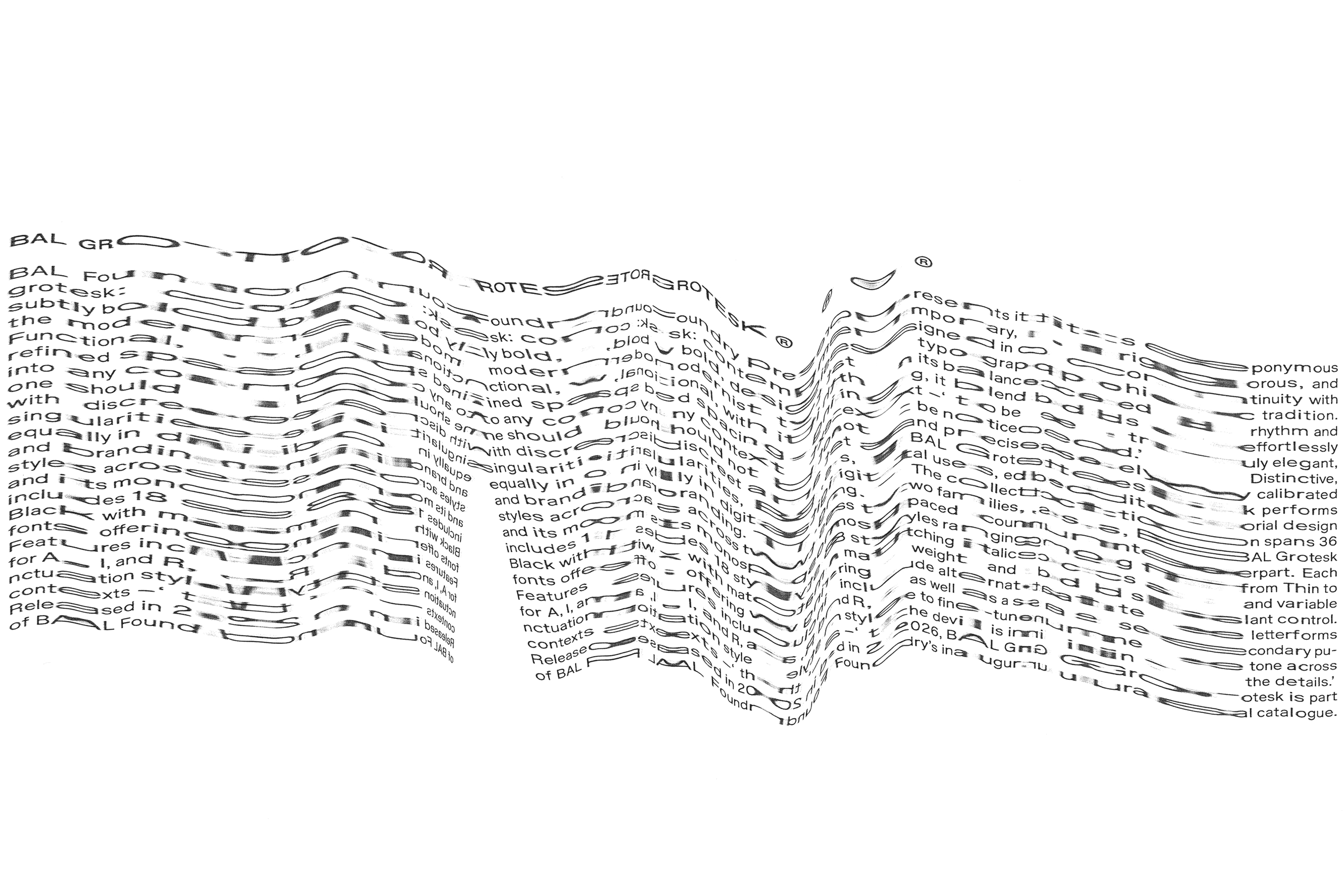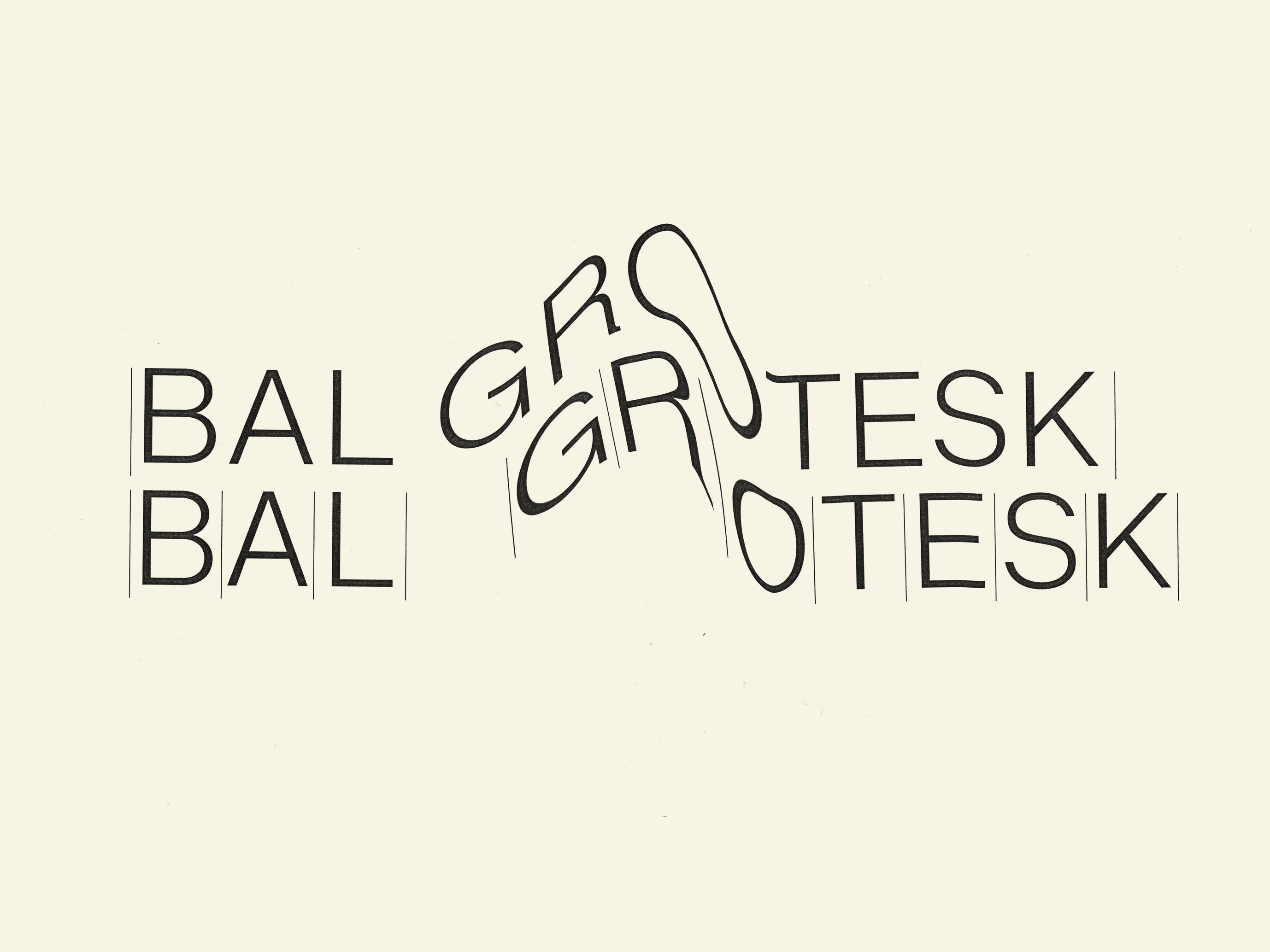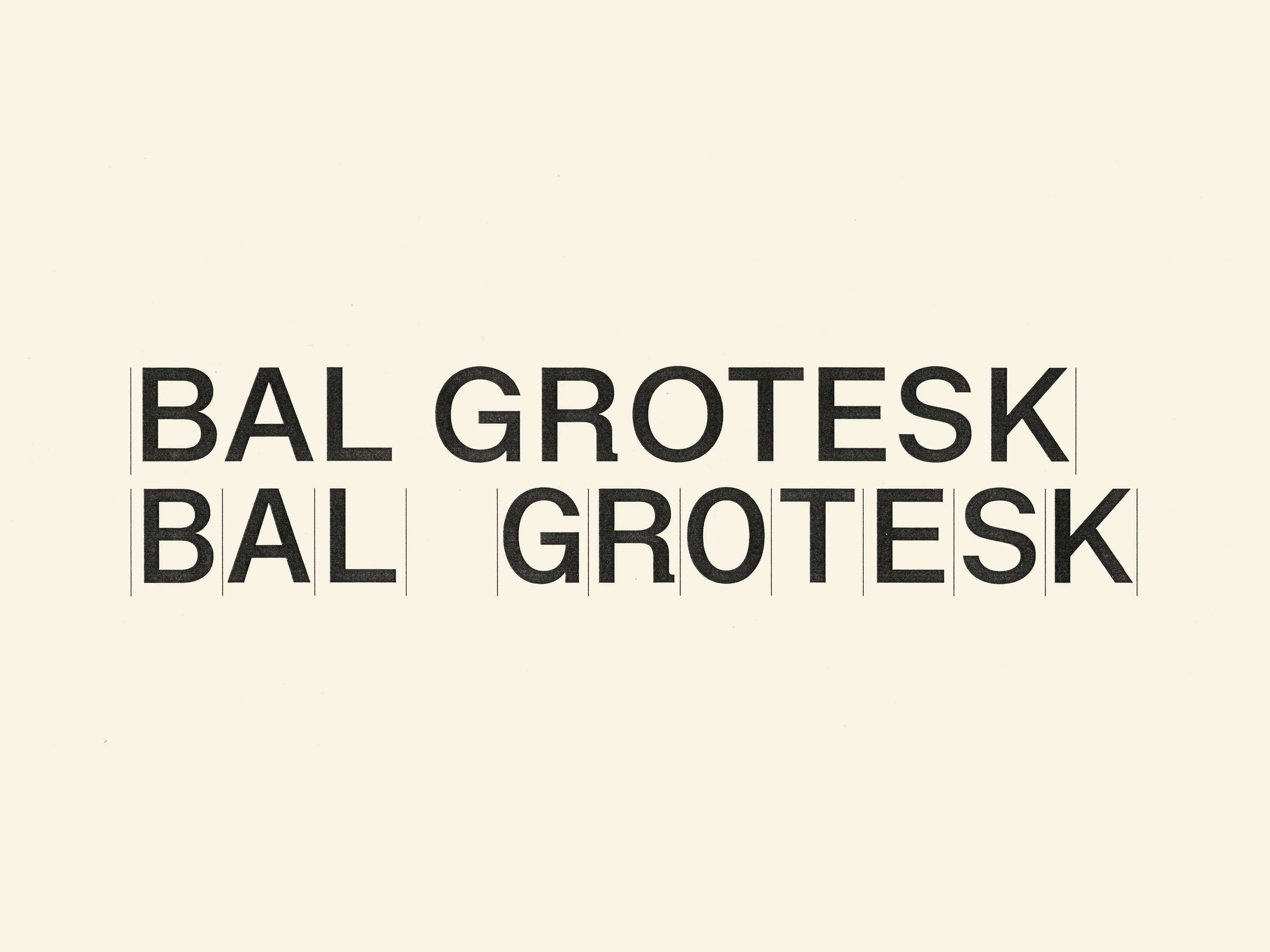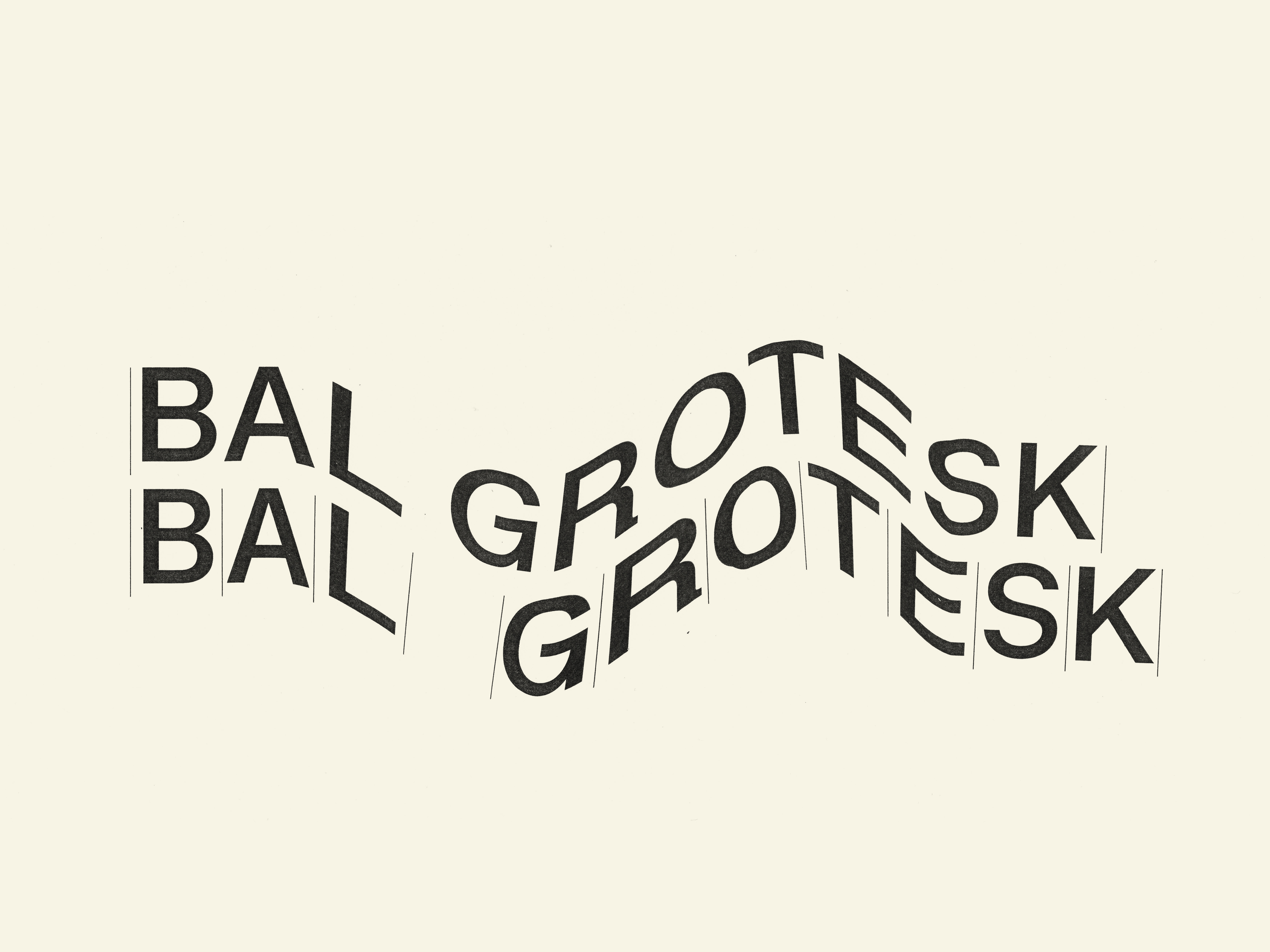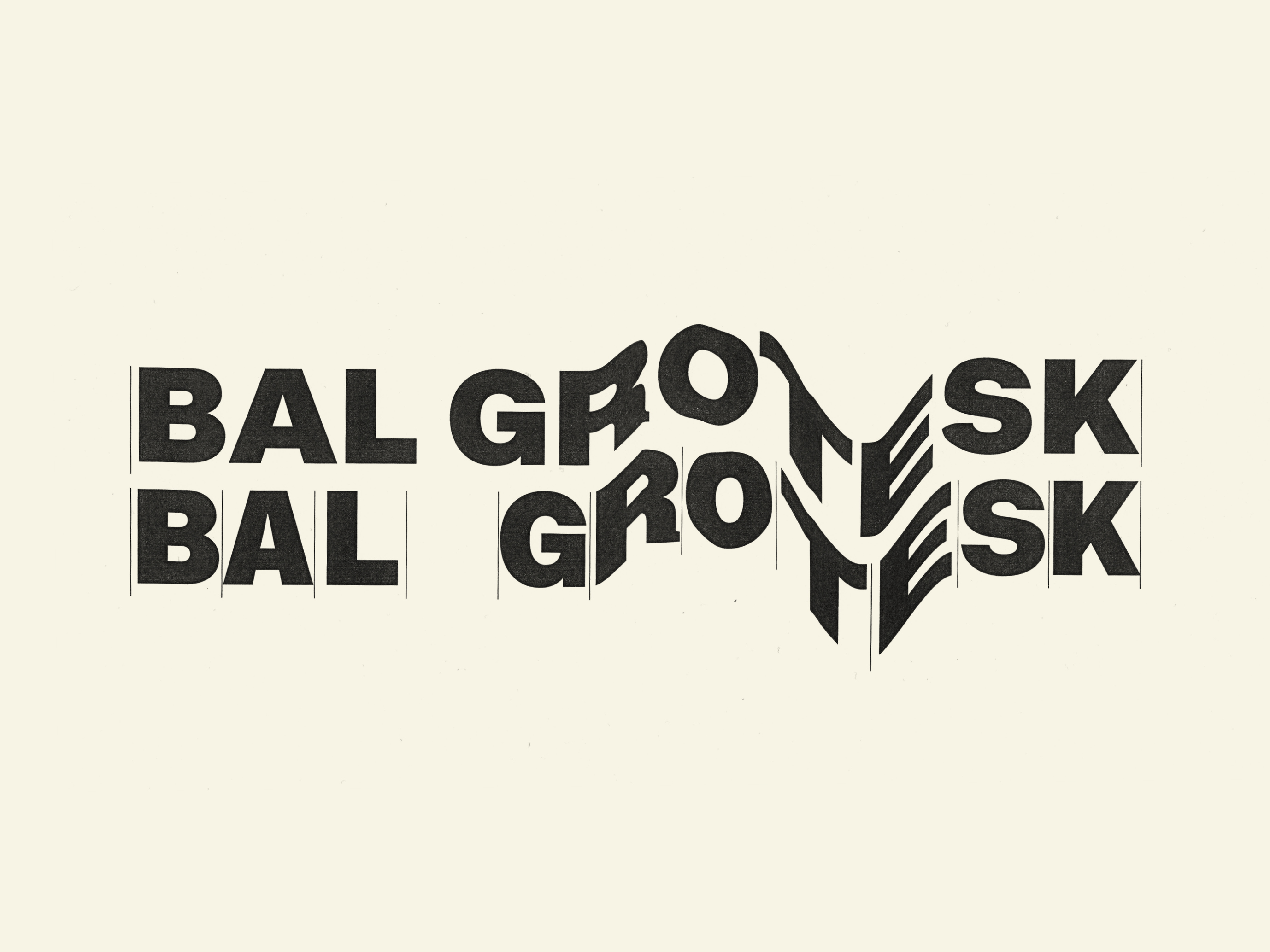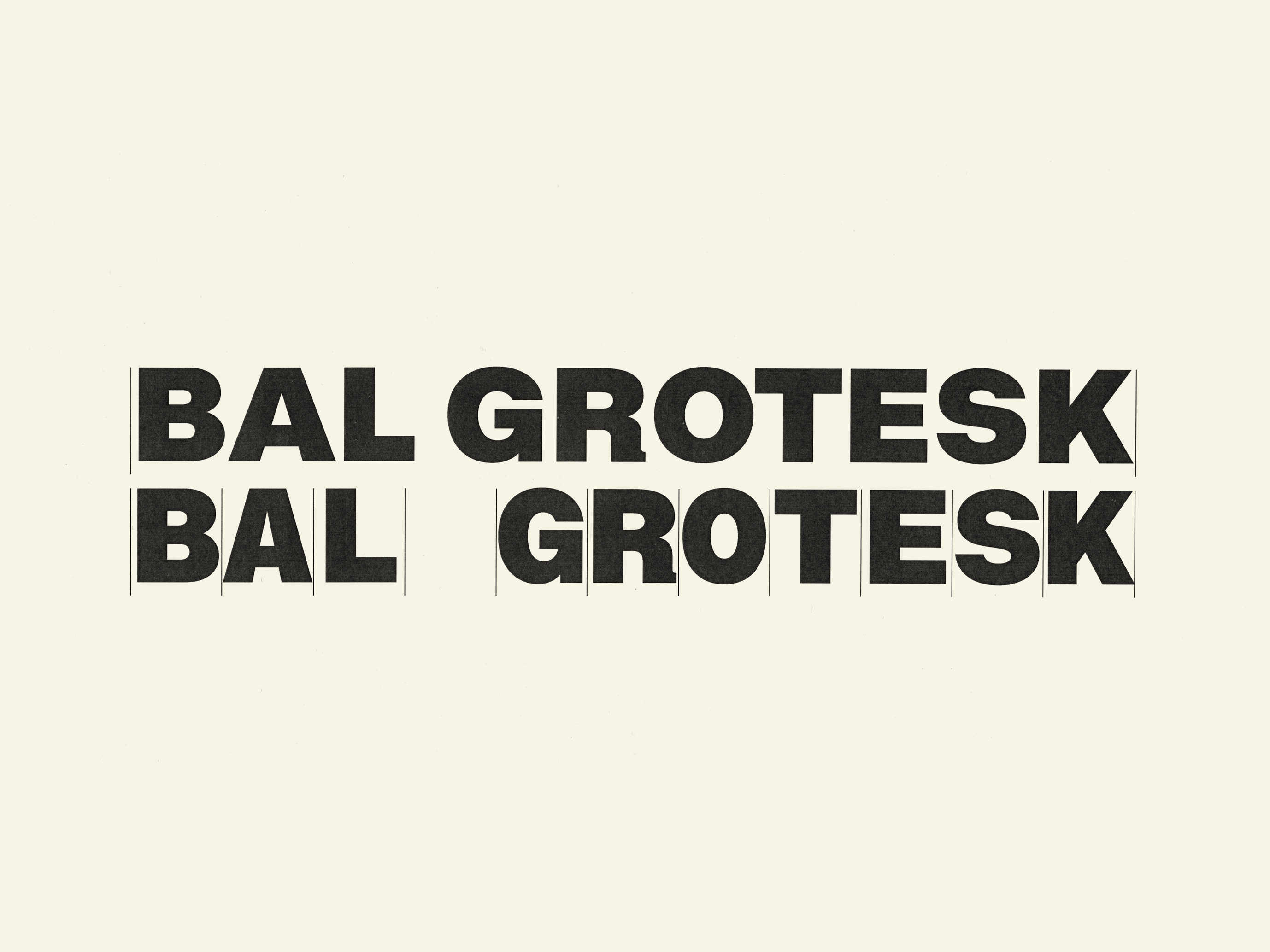
BAL Grotesk
About BAL Grotesk
BAL Foundry presents its eponymous grotesk: contemporary, rigorous, and subtly bold, designed within the modernist typographic tradition. Functional, with its balanced rhythm and refined spacing, it blends effortlessly into any context — “to be truly elegant, one should not be noticed.” Distinctive, with discreet and precisely calibrated singularities, BAL Grotesk performs equally in digital uses, editorial design and branding.
The collection spans 36 styles across two families, BAL Grotesk and its monospaced counterpart. Each includes 18 styles ranging from Thin to Black with matching italics and variable fonts offering weight and slant control. Features include alternate letterforms for A, I, and R, as well as a secondary punctuation style to fine-tune tone across contexts — “the devil is in the details.”
Released in 2026, BAL Grotesk is part of BAL Foundry’s inaugural catalogue.